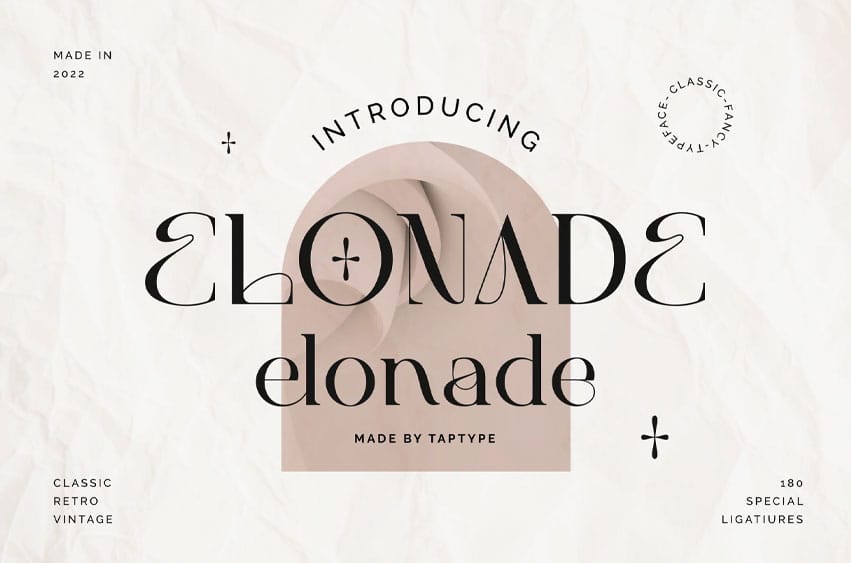
Elonade Font is a stylish modern font Serif. Minimalist character that allowing you to easily edit the designs.
It is perfect for branding, wedding invites and cards, and maybe for some project.
- 180 Special ligatures